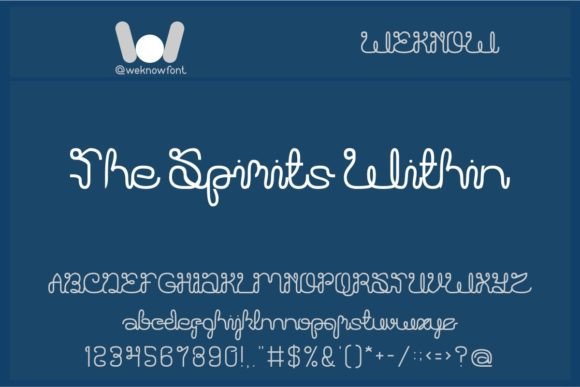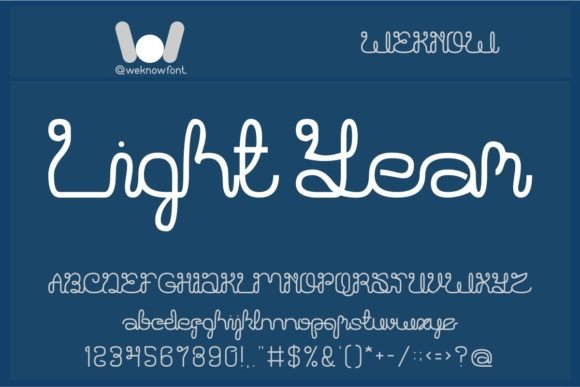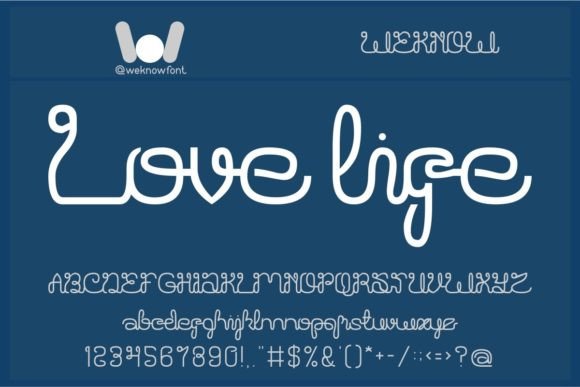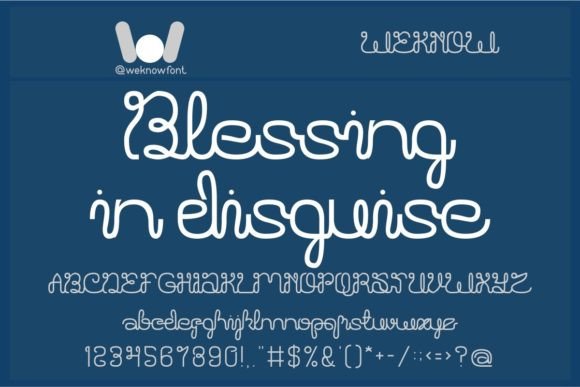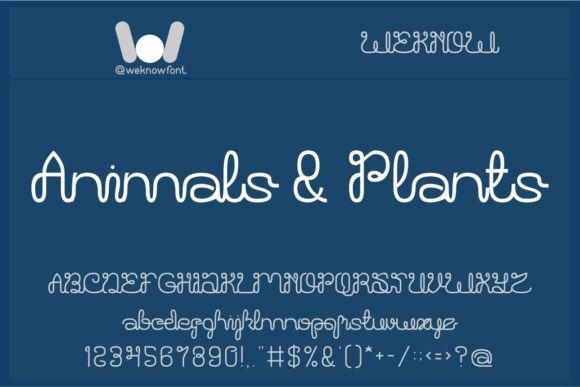
Introducing Collective Soul: The Ultimate Script and Handwritten Display Font
Are you a designer, crafty entrepreneur, or creative enthusiast looking for the perfect font to elevate your brand or project? Look no further than Collective Soul, a versatile and stylish script and handwritten display font. This exceptional font is suitable for a wide range of applications, from logos and headlines to posters, magazines, and websites.
What Makes Collective Soul Stand Out?
Collective Soul is more than just a font – it’s a statement piece. Its unique blend of script and handwritten elements creates a distinctive look that’s both elegant and playful. This font is perfect for designers and crafters who want to add a personal touch to their work without sacrificing professionalism.
With Collective Soul, the design possibilities are endless. Here are just a few examples of how you can use this incredible font:
• Logo and Logotype: Create a memorable brand identity with a custom logo or logotype that showcases your business’s personality.
• Headlines and Titles: Add a touch of sophistication to your posters, magazines, and website headers with Collective Soul’s elegant script.
• Apparel Industry: Design eye-catching t-shirts, hoodies, and other apparel with a font that’s both stylish and easy to read.
• Music, Movie, and Game: Create bold and attention-grabbing titles for your music tracks, movie posters, or game designs.
• Book, Comic, and Cartoon: Bring your stories to life with a font that’s perfect for book covers, comic strips, and cartoon titles.
• YouTube, Instagram, and Website: Elevate your online presence with a font that’s optimized for digital platforms.
Key Features of Collective Soul
So, what makes Collective Soul the ultimate script and handwritten display font? Here are some of its key features:
• Unique and Handcrafted: Collective Soul is a carefully crafted font that’s designed to stand out from the crowd.
• Script and Handwritten: This font combines the elegance of script with the playfulness of handwritten elements.
• Highly Versatile: Collective Soul can be used for a wide range of design projects, from logos and headlines to posters and websites.
• Easily Readable: Despite its unique style, Collective Soul is highly legible, making it perfect for body text and captions.
Why Choose Collective Soul?
With so many fonts available, why choose Collective Soul? Here are just a few reasons why designers and crafters love this font:
• Customizable: Collective Soul can be easily customized to fit your brand’s unique style and personality.
Collective Soul is the ultimate script and handwritten display font for designers, crafters, and creative enthusiasts. With its unique blend of elegance and playfulness, this font is perfect for a wide range of design projects. Whether you’re looking to create a memorable brand identity, design eye-catching apparel, or elevate your online presence, Collective Soul is the perfect choice. So why wait? Download Collective Soul today and take your designs to the next level!